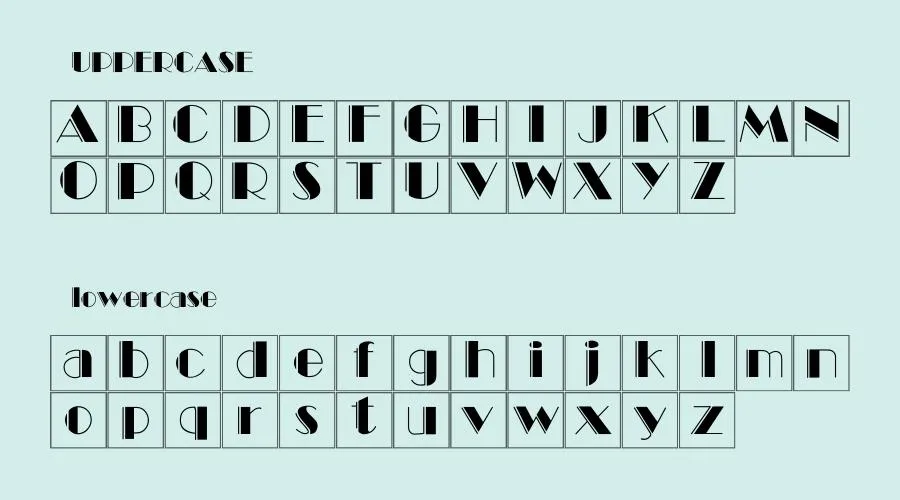
About Bummet Engraved Font
The Bummet Engraved Font was designed by a well-known graphic developed Damir Alvarado. This outstanding typeface is under the category of the display typeface family. It has both file formats OpenType and TrueType.
It has a high x-height, wide counters, and a large aperture. It also has a large variety of glyphs and contains ligatures, little caps, old-style figures, and traces. The online generator tool of this font will help you to convert all your simple textures into stylish and modern shapes.